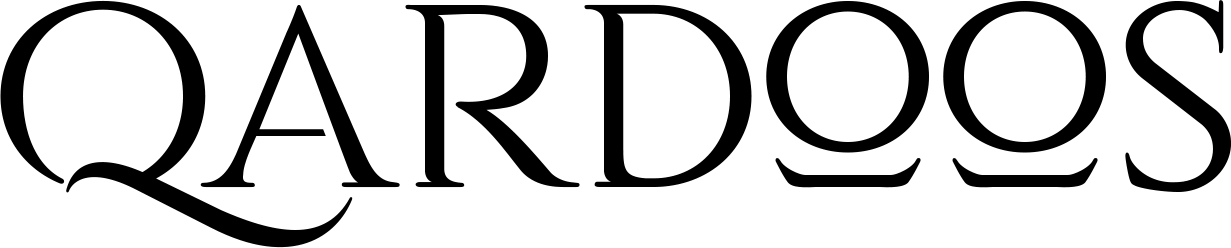
Qardoos Font
If you are interested in fonts that have serif edges, Qardoos is an excellent choice to add to your selection for your typography! What makes this specific one special is the classic feel, being trustworthy and giving a professional impression and the character has an amazing style.
This serif font includes two styles of capitalized alphabets, numbers, and some symbols without any lowercase letters. Qardoos will surprise you in places like weddings, magazines, books, movies, etc.